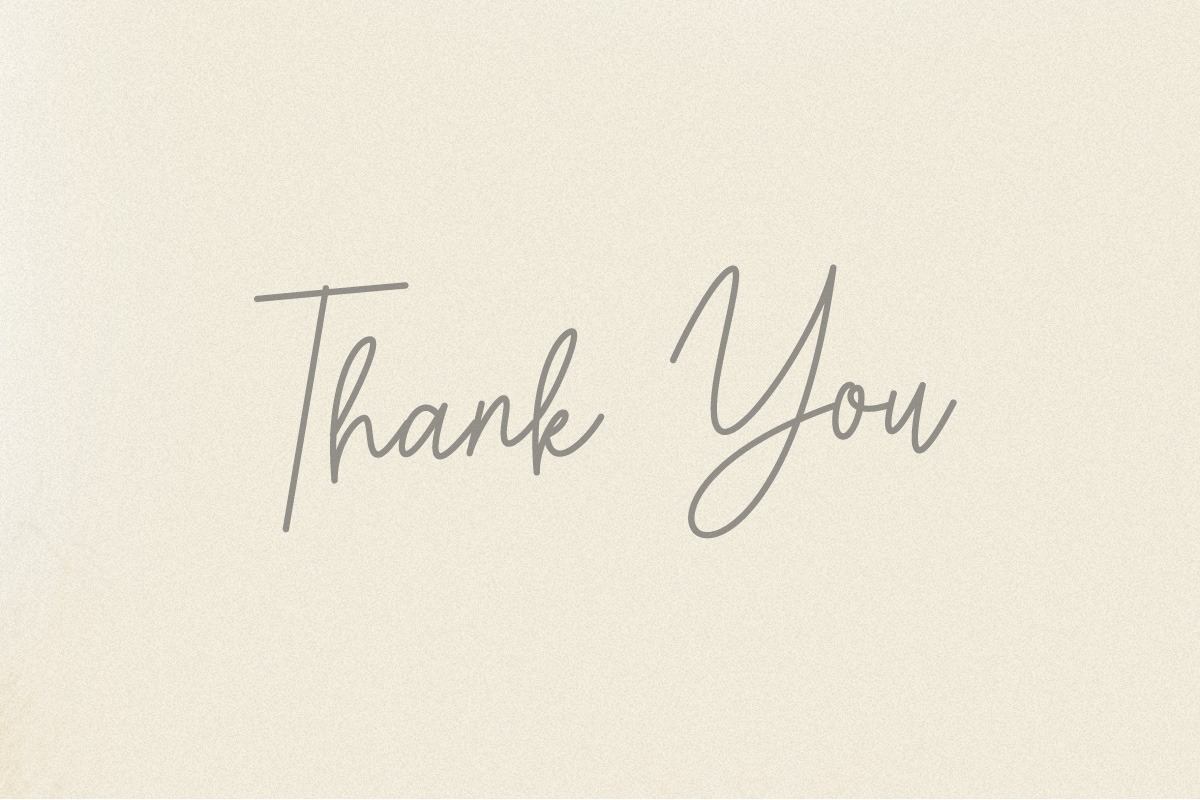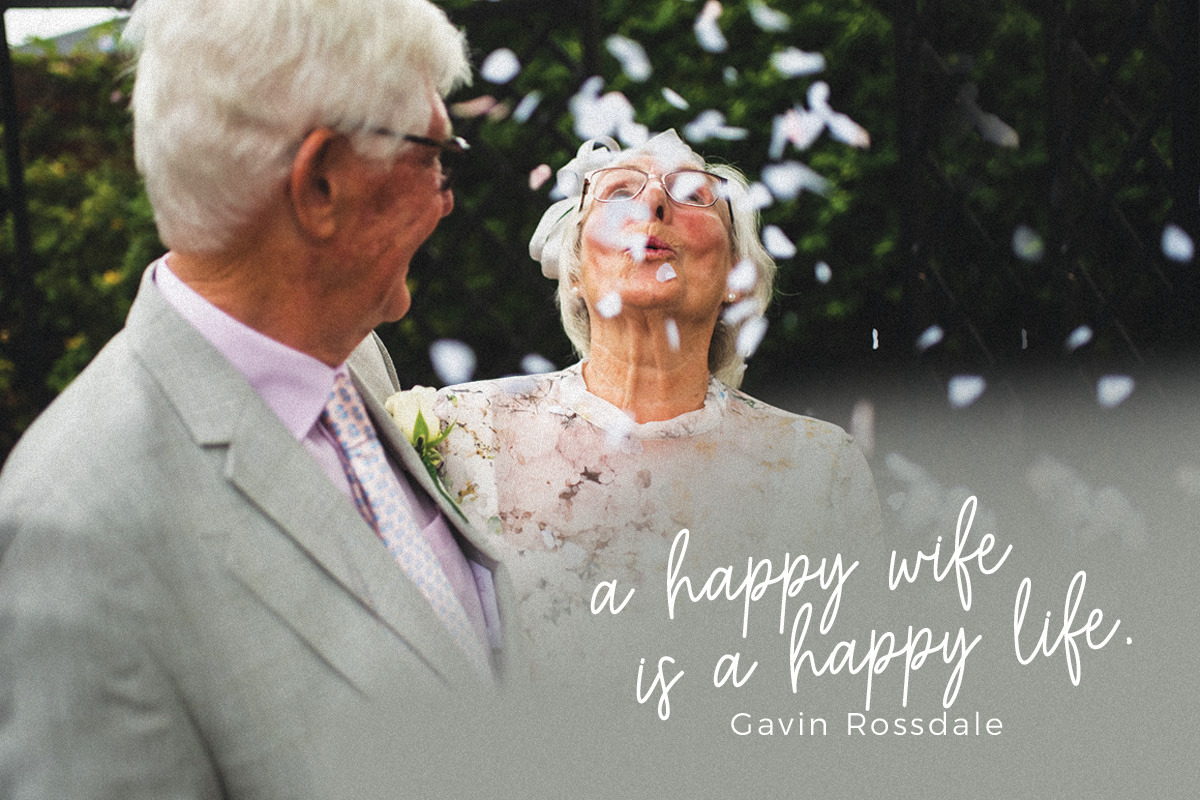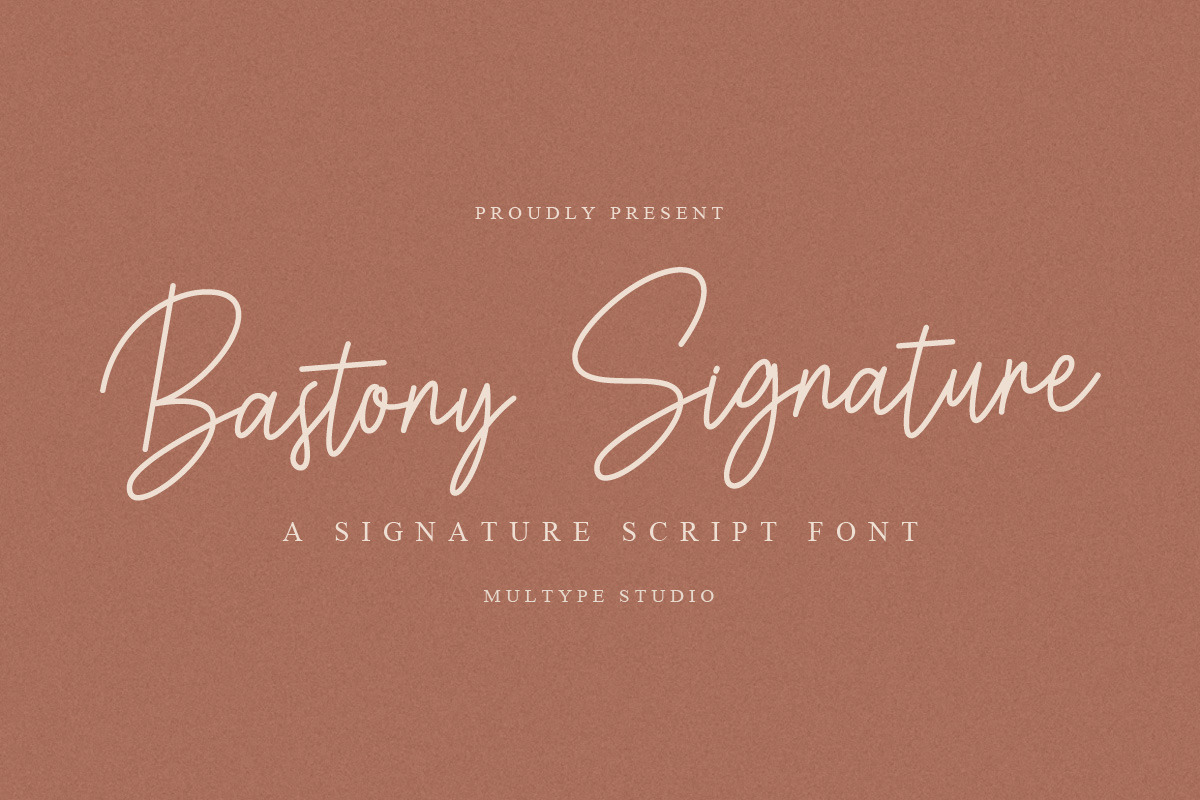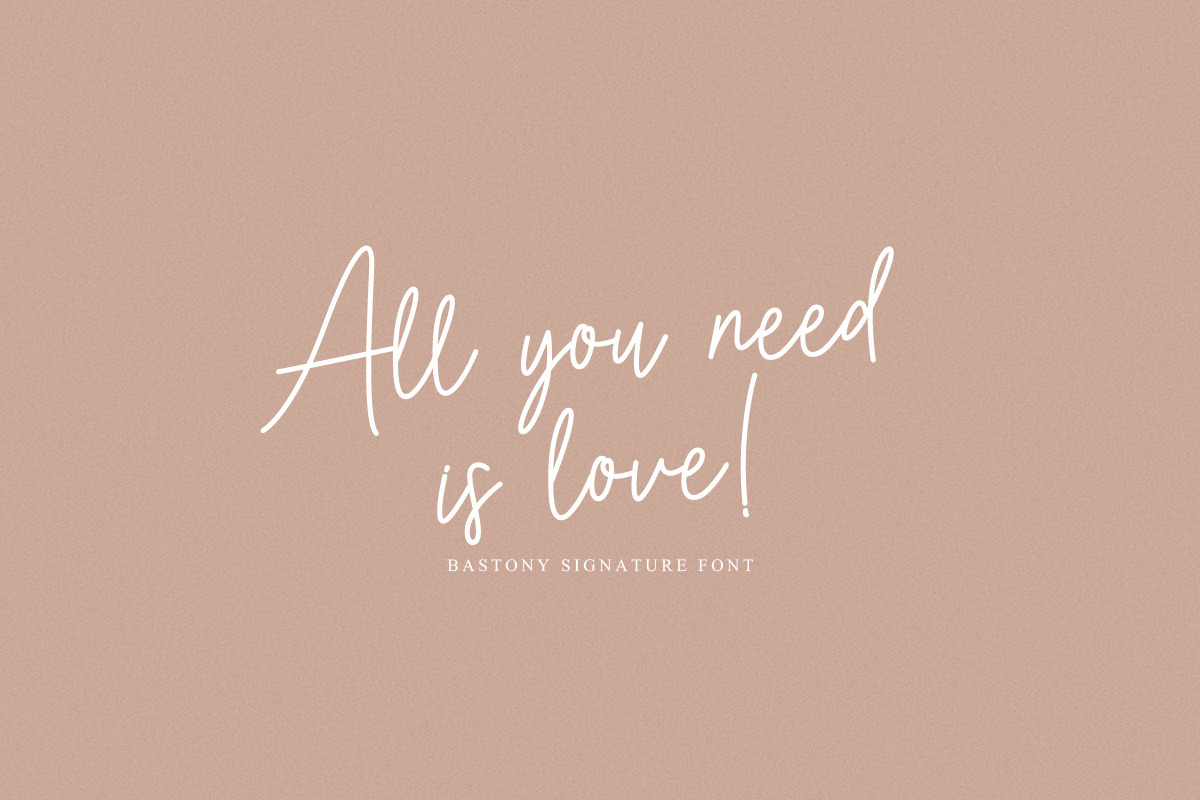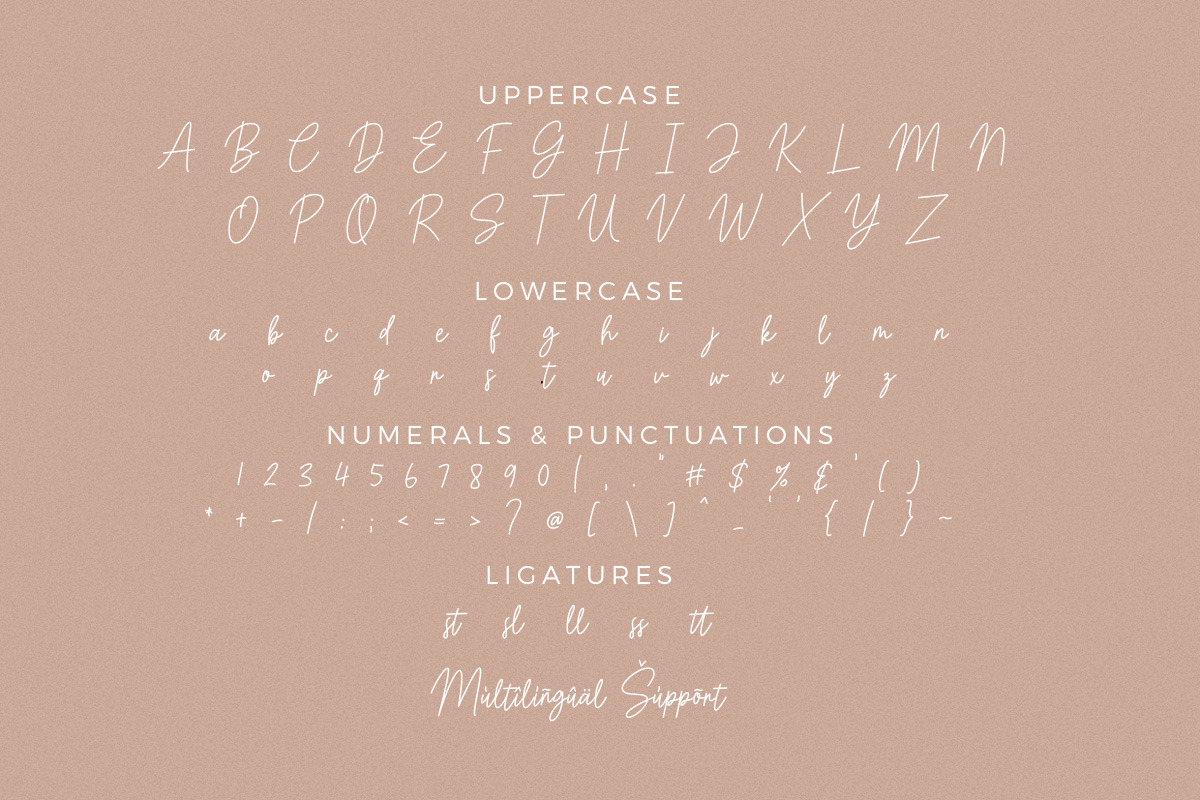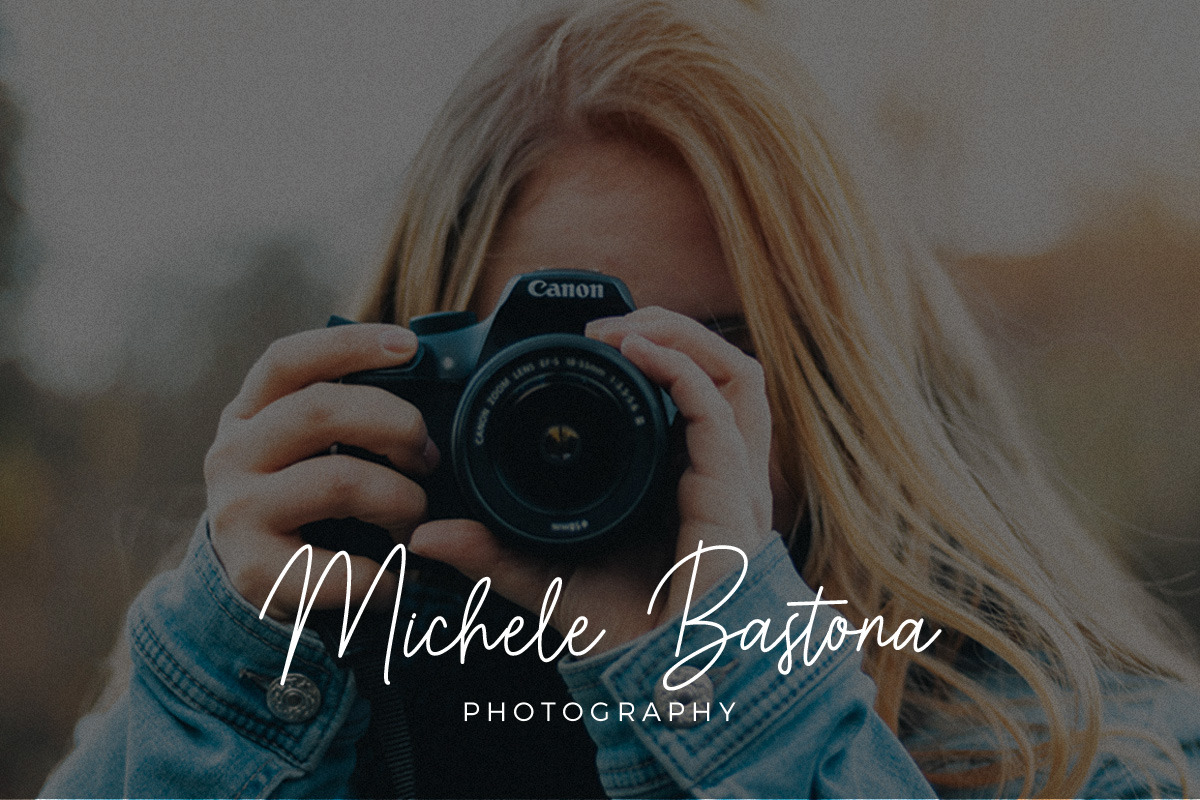
Bastony Signature Font
Bastony Signature is is a simple and classy font with unique curves and an elegant inky flow.
Features : uppercase, lowercase, symbol, number, ligature, and also support multi language.
Bastony Signature is perfect for photography, watermark, social media posts, advertisements, logos & branding, invitation, product designs, label, stationery, wedding designs, product packaging, special events or anything that need handwriting taste.